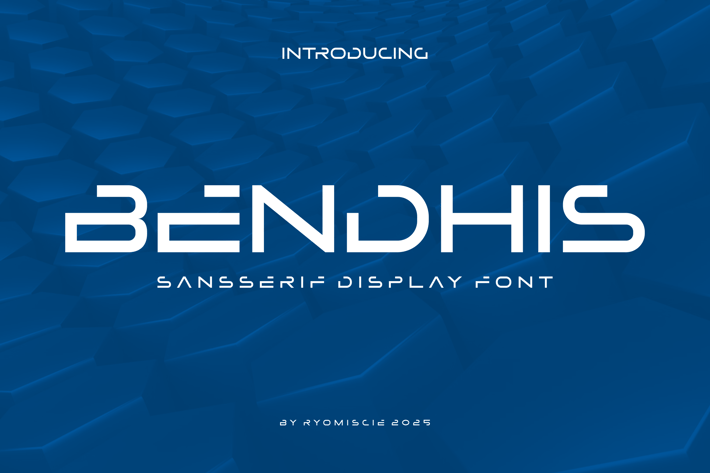
Bendhis - Sans Serif Display Font
Introducing our new product Bendhis Font - Modern Font
Bendhis Font - Modern Font is a bold and authentic display font. The font is suitable for any branding project like logo,
t-shirt printing, esport, and many more. outstanding in a wide range of contexts.
* Bendhis Uppercase